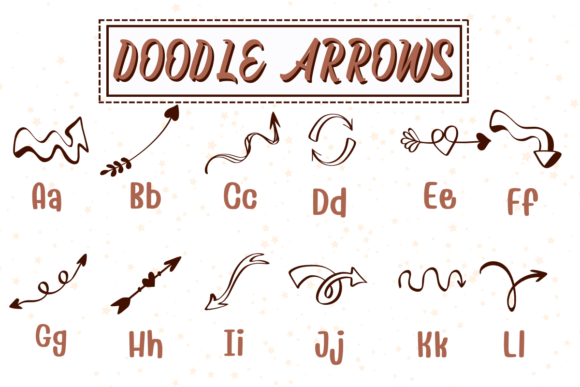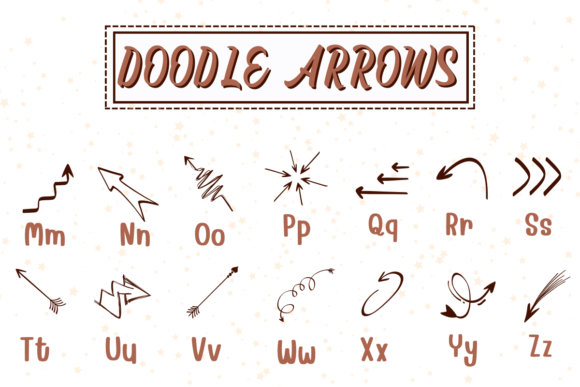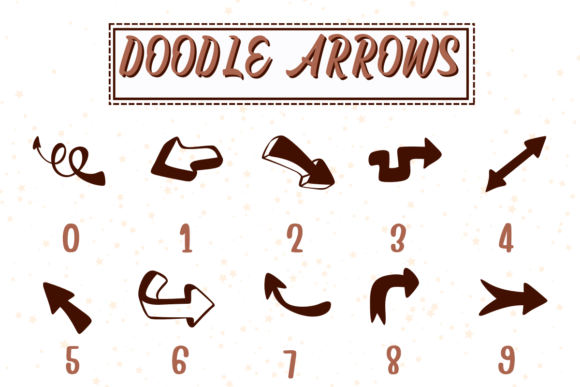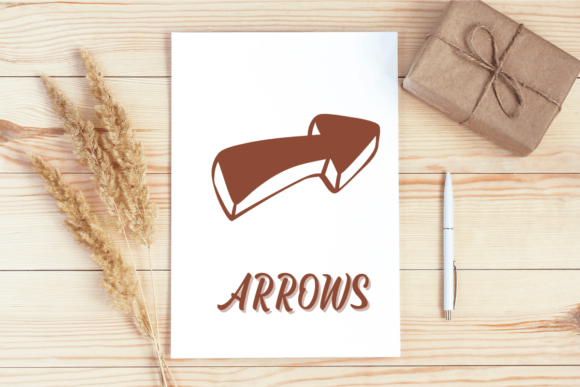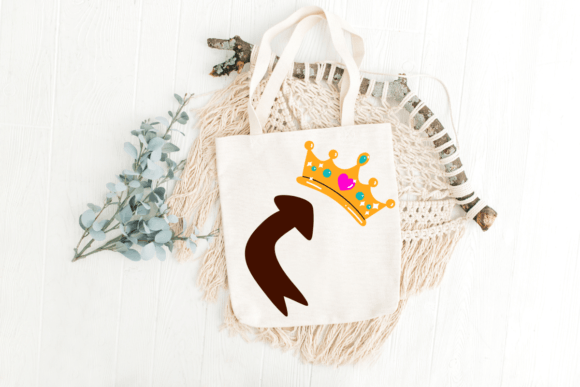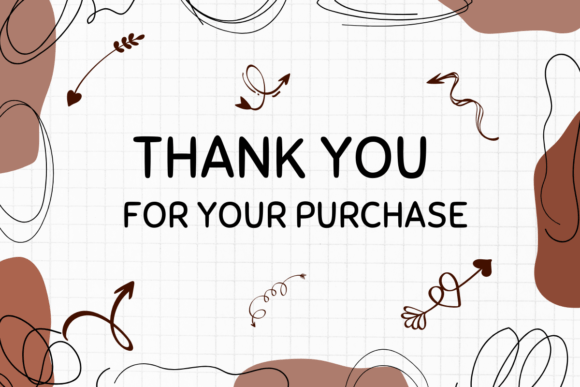
Doodle Arrows Font: Elevate Your Creative Projects with a Sketchy Twist
Are you a designer, crafter, or DIY enthusiast looking for a unique and creative way to add a personal touch to your projects? Look no further than the Doodle Arrows Font, a dingbats font with a theme that features a charming sketch style. This versatile font is perfect for a wide range of creative projects, from wedding invitations and crafts to decorations, logos, and more.
What is Doodle Arrows Font?
Doodle Arrows Font is a dingbats font that offers a collection of arrow symbols, shapes, and icons with a distinctive sketchy style. The font is designed to resemble hand-drawn doodles, giving it a friendly and approachable feel. With its eclectic mix of arrows, shapes, and decorative elements, Doodle Arrows Font is an excellent choice for anyone looking to add a touch of whimsy and personality to their designs.
How to Use Doodle Arrows Font
Doodle Arrows Font can be used in a variety of creative projects, including:
- Wedding Invitations: Add a personal touch to your wedding invitations with custom doodle arrows that match your wedding theme.
- DIY Crafts: Use Doodle Arrows Font to create custom labels, tags, and decorations for your DIY crafts, such as scrapbooking, card making, and home decor projects.
- Logos and Branding: Incorporate doodle arrows into your logo design to give your brand a unique and playful identity.
- Decorations: Use Doodle Arrows Font to create custom wall art, garlands, and other decorations for parties, events, and everyday decor.
Benefits of Using Doodle Arrows Font
There are many benefits to using Doodle Arrows Font in your creative projects. Here are a few:
- Unique and Eye-Catching: Doodle Arrows Font offers a distinctive and eye-catching style that will set your projects apart from the rest.
- Versatile: The font can be used in a wide range of creative projects, from digital designs to handmade crafts.
- Customizable: You can customize the font to fit your project’s style and theme, making it easy to match your brand or design aesthetic.
Tips for Getting the Most Out of Doodle Arrows Font
Here are a few tips for getting the most out of Doodle Arrows Font:
- Experiment with Different Sizes and Colors: Play around with different sizes and colors to find the perfect combination for your project.
- Mix and Match: Combine Doodle Arrows Font with other fonts and design elements to create a unique and visually appealing design.
- Use it in Combination with Other Design Elements: Use Doodle Arrows Font in combination with other design elements, such as photos, illustrations, and textures, to add depth and interest to your design.
Doodle Arrows Font is a versatile and creative font that can elevate your projects and add a personal touch. With its unique sketch style and wide range of uses, it’s an excellent choice for designers, crafters, and DIY enthusiasts. Whether you’re looking to create custom wedding invitations, decorations, or logos, Doodle Arrows Font is sure to inspire your creativity and help you achieve professional-looking results.